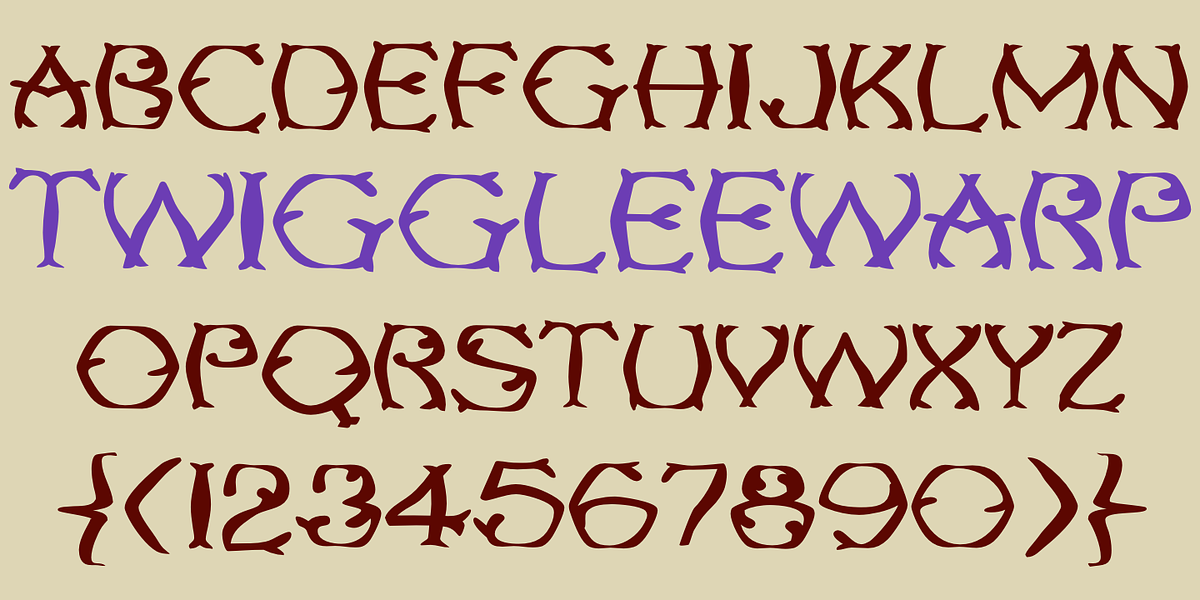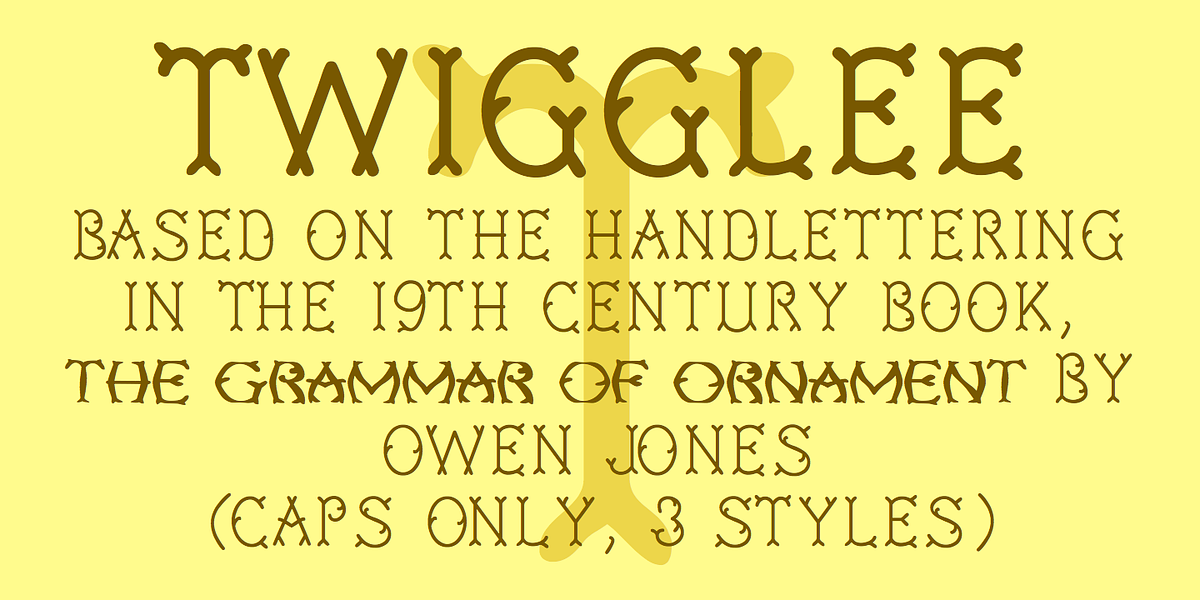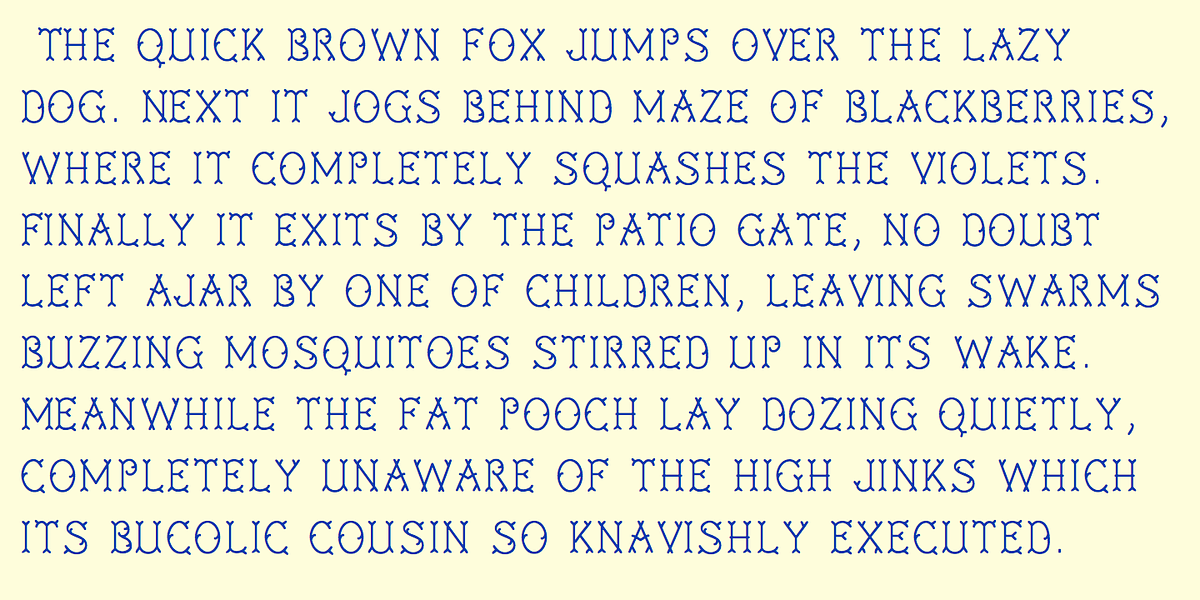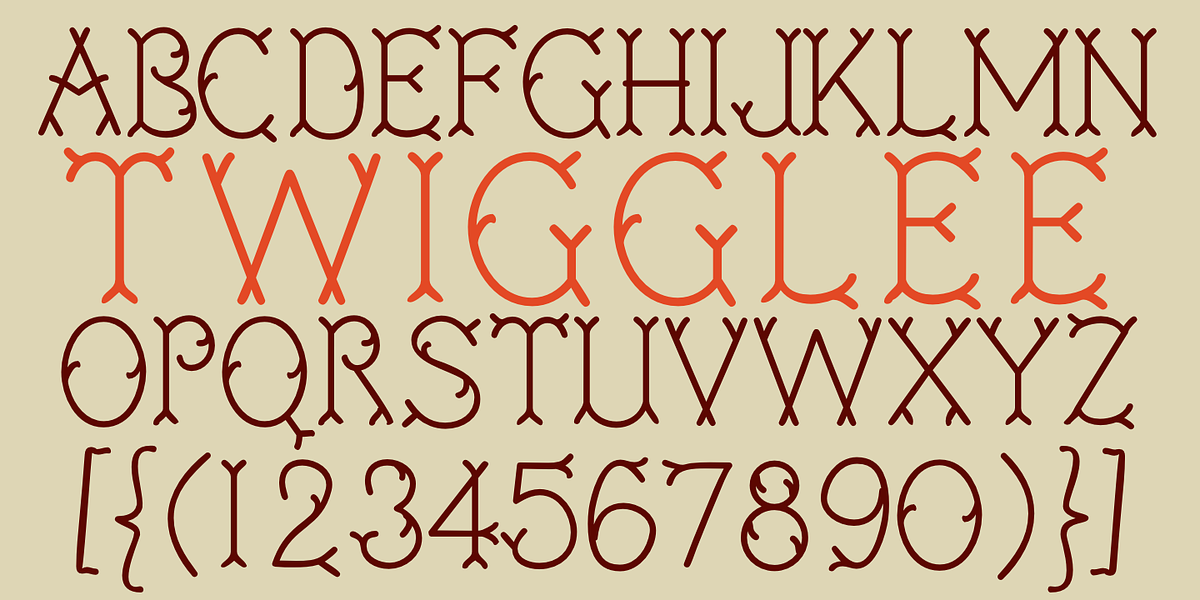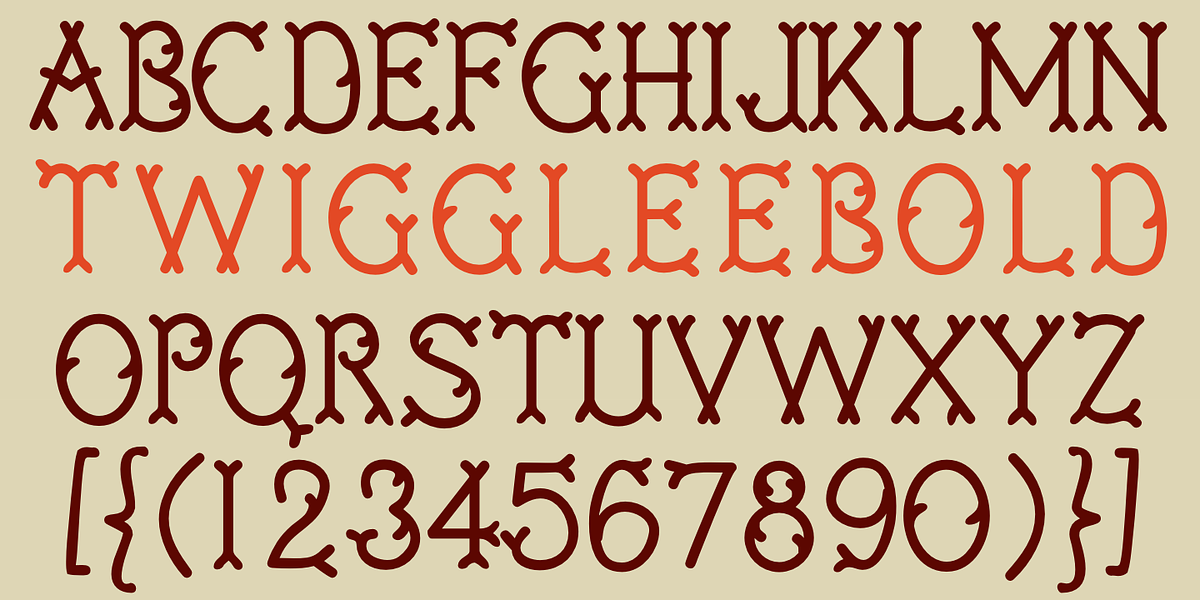
Twigglee
Twigglee is a hand-drawn display font inspired by the ornamental lettering found on plates in a 19th-century book on ornaments by Owen Jones. The font features all capital letters and is characterized by its decorative, elegant style.